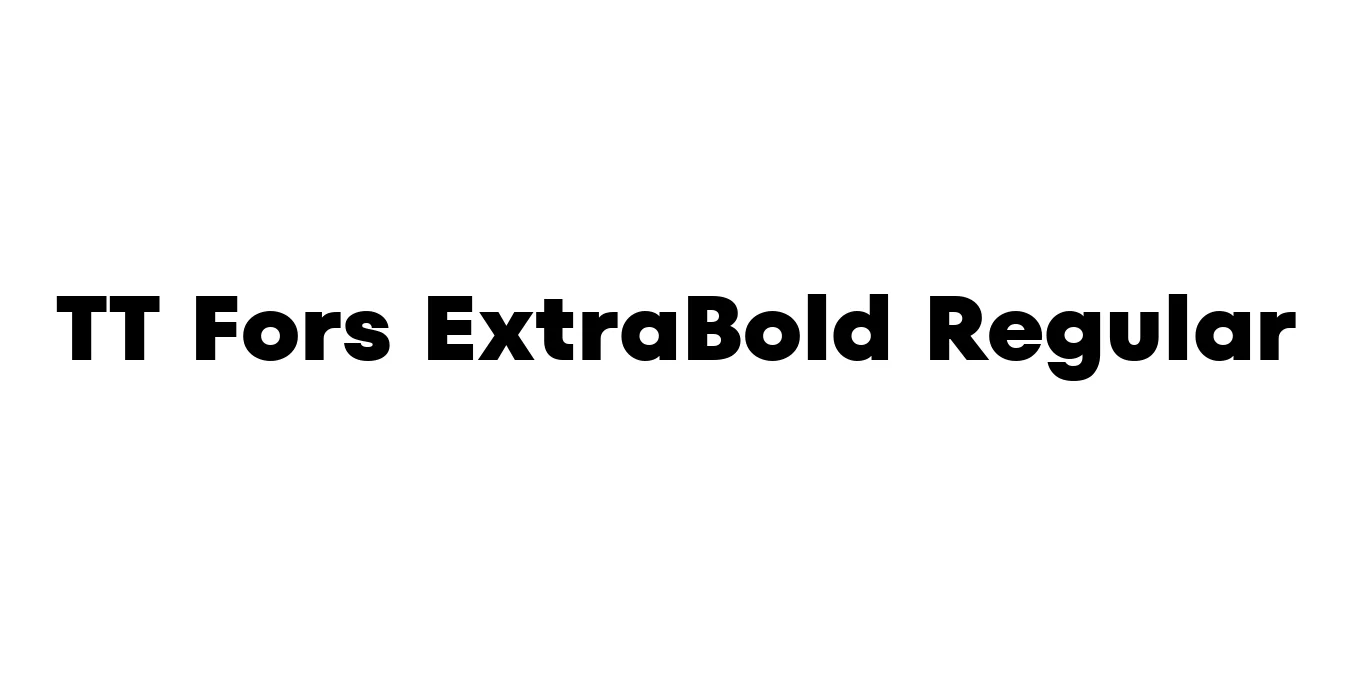
TT Fors ExtraBold Regular
Designed by TypeType Team
| Category | Geometric Sans Serif |
TT Fors ExtraBold Regular is a standout member of the TT Fors family, developed by the Russian foundry TypeType. Conceived as a versatile tool for modern communications, the family draws inspiration from the functionality and geometric purity of early 20th-century sans-serifs while being meticulously engineered for the demands of high-resolution digital displays. This ExtraBold variant was specifically crafted to bridge the gap between pure utility and high-impact display typography, ensuring that the foundational geometric DNA remains intact even at extreme weights.
Technical analysis reveals a font characterized by its generous x-height and wide apertures, which prevent the counter-spaces from clogging despite the massive stroke thickness. The letterforms exhibit a distinct lack of decorative elements, adhering to a strict geometric construction that maximizes legibility in headline settings. The ExtraBold weight features optical corrections to maintain consistent color across the line, making it exceptionally effective for branding and environmental graphics where visual weight must convey authority without sacrificing clarity.
TT Fors ExtraBold Regular Best Uses
Ideal for bold logotypes and brand identity systems that require a strong, modern presence.
Perfect for high-impact outdoor signage and digital banners where visibility is key.
Excellent for landing page headers where visual hierarchy is paramount.